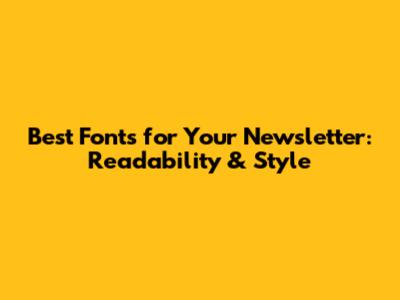
Hey guys! So, you're diving into the awesome world of newsletters, and you've probably hit a bit of a snag: choosing the perfect font. It sounds simple, right? But trust me, picking the right typography can seriously make or break your newsletter. We're talking about readability, brand personality, and whether your subscribers actually stick around to read what you've so carefully crafted. Today, we're going to unpack how to find those amazing fonts that will make your newsletter shine. We'll cover everything from the classics that everyone loves to some cooler, more modern options that can give your message that extra pop. It's all about making sure your content is not just seen, but truly enjoyed by everyone who opens it. Get ready to level up your newsletter game, because the right font is your secret weapon!
Why Font Choice Matters for Your Newsletter Crew
Alright, let's get real for a sec. Why should you even care about fonts for your newsletter? It's more than just pretty letters, guys. Think about it: your font is the first visual impression your words make. It sets the tone before anyone even reads a single word. A cluttered, hard-to-read font? That's like trying to have a serious conversation in a noisy bar – frustrating and likely to end with people tuning out. On the flip side, a clean, well-chosen font can make your message feel professional, trustworthy, and super easy to digest. For newsletters specifically, we're often dealing with longer chunks of text, which means readability is king. You want your subscribers to glide through your content, not stumble over every other letter. This is especially true for email newsletters, where different email clients and devices can render fonts in slightly different ways. So, choosing web-safe fonts or those with robust fallbacks is crucial. Beyond just being able to read it, the font also screams your brand's personality. Are you a playful, quirky brand? Maybe a more humanist sans-serif or even a carefully selected script font (used sparingly!) could work. Are you a sophisticated, corporate entity? A classic serif or a sleek, modern sans-serif might be your jam. The goal is to have your font choices align perfectly with your brand's voice and values, creating a cohesive and memorable experience for your audience. It's about building trust and ensuring that every time someone sees your newsletter, they instantly recognize you and feel good about engaging with your content. Plus, let's be honest, a visually appealing newsletter is just more fun to read, leading to higher engagement rates, more clicks, and ultimately, a stronger connection with your community. So yeah, font choice? It's a big deal.
Serif vs. Sans-Serif: The Classic Debate for Your Newsletter
Okay, let's break down the two main camps of fonts: Serifs and Sans-Serifs. Understanding the difference is key to making an informed decision for your newsletter. First up, Serif fonts. These are your classic, traditional fonts. You know, the ones with the little decorative 'feet' or 'strokes' at the ends of the letters? Think Times New Roman, Georgia, or Garamond. The theory behind serifs is that those little feet help guide the reader's eye along the line of text, making them particularly great for long blocks of copy, like in books or, you guessed it, newsletters. They often convey a sense of elegance, tradition, and trustworthiness. If your newsletter aims for a more formal, authoritative, or classic feel, a serif font can be a fantastic choice. They can make your content feel established and credible. Now, let's talk about Sans-Serif fonts. 'Sans' literally means 'without', so these are fonts without those little feet. Think Arial, Helvetica, Open Sans, or Lato. Sans-serifs are generally considered more modern, clean, and minimalist. They tend to be super readable on digital screens, especially at smaller sizes, which is a massive plus for email newsletters that need to look good on phones, tablets, and desktops. Many designers prefer sans-serifs for body text in digital formats because of their crispness and clarity. They often evoke feelings of friendliness, approachability, and simplicity. If your brand is more contemporary, tech-focused, or aims for a casual, direct vibe, a sans-serif is likely your best bet. Now, the big question: which one for your newsletter? Honestly, there's no single right answer! Many successful newsletters use a sans-serif for body text because of its superior digital readability. However, you could also use a serif for body text and then a contrasting sans-serif for headings, or vice-versa, to create visual interest. The most important thing is to test how your chosen font looks in an actual email preview across different devices and email clients. Prioritize legibility above all else, but don't forget that your font choice also speaks volumes about your brand's personality. Experiment, see what feels right for your message, and always keep your readers' experience front and center.
Top Font Picks for Maximum Newsletter Readability
Alright, so we've covered the why and the what (serifs vs. sans-serifs). Now, let's get down to the nitty-gritty: which specific fonts are actually good for newsletters? We're talking about fonts that are not only stylish but, more importantly, incredibly easy to read, even in a crowded inbox. When choosing for your newsletter body text, always think web-safe and highly legible. You want fonts that render consistently across all devices and email clients. Sans-serifs are often the go-to for this reason. Let's start with some absolute rockstars. Open Sans is a phenomenal choice – it's friendly, highly readable, and has a huge range of weights. It's a Google Font, so it's free and widely supported. Lato is another fantastic option, similar to Open Sans but with a bit more personality, feeling both warm and stable. Roboto is Google's default Android font, and it's incredibly versatile, designed with readability in mind for screens. Montserrat offers a geometric and modern feel, great for brands wanting a clean, urban vibe. If you're leaning towards serifs for a more classic or sophisticated feel, Merriweather is a superb choice. It's a serif designed specifically for screens, making it much more readable than traditional print serifs. Lora is another beautiful serif option, offering a touch of elegance without sacrificing legibility. Source Serif Pro is also a strong contender, known for its clarity. Now, for headings, you have a bit more freedom to play! You can use a bolder weight of your body font, or you can introduce a contrasting font. A strong, distinctive sans-serif like Oswald or Playfair Display (a dramatic serif) can make headings pop. The key here is contrast and hierarchy. Your headings should stand out from your body text, guiding the reader's eye through the article. Remember, the goal is effortless reading. Avoid novelty fonts, overly decorative scripts (unless it's a very small, specific accent), or anything that looks cramped or cluttered. Test, test, test! Send test emails to yourself and view them on your phone, tablet, and desktop. Ask friends to read a draft. See how the font behaves in different situations. Your readers will thank you for making their experience a pleasure, not a chore.
Pairing Fonts: Creating a Dynamic Newsletter Look
Okay, so you've picked a fantastic font for your body text, but what about headings, subheadings, and maybe even call-to-action buttons? This is where font pairing comes in, and guys, it's where you can really inject some personality and visual interest into your newsletter! The goal of pairing is to create contrast while maintaining harmony. You want your different text elements to be distinct but still feel like they belong to the same family – your brand family, that is. The most common and effective strategy is to pair a serif with a sans-serif. This offers a strong, clear contrast that naturally creates hierarchy. For example, you could use a clean, modern sans-serif like Open Sans or Lato for your body text, and then pair it with a more distinctive serif font like Playfair Display or Merriweather for your main headings (H1s and H2s). The serif headings will stand out boldly against the simpler sans-serif paragraphs, drawing the reader's eye. Conversely, you could go with a classic serif like Georgia for your body copy and use a strong, clean sans-serif like Montserrat or Oswald for your headings. This approach often feels very sophisticated and professional. Another pairing technique is to use different weights or styles of the same font family. For instance, you might use a regular weight of Roboto for your body text and a bold or black weight of Roboto for your headings. This creates a very cohesive and minimalist look. You can also play with italics – perhaps using italics for pull quotes or emphasis within the body text. When choosing pairs, think about the overall mood you want to convey. Do you want something bold and impactful? Go for strong contrast. Do you want something subtle and understated? Stick to variations within a single family or very closely related styles. Crucially, ensure both fonts are highly readable, especially the body text. Never sacrifice legibility for the sake of a trendy pairing. Test your combinations in actual email previews. Do the headings look too large or too small compared to the body text? Is there enough space between lines (leading)? Does the combination feel cluttered or clean? Get it right, and your newsletter will not only be easy to read but also visually engaging and memorable, reinforcing your brand's unique identity with every send. It’s all about that visual storytelling!
Common Newsletter Font Mistakes to Avoid, Guys!
Alright, let's talk about the pitfalls. We all want our newsletters to look amazing, but sometimes, in the quest for uniqueness, we end up making choices that actually hurt our message. So, let's cover some common newsletter font mistakes that you should definitely steer clear of. First and foremost: Don't use novelty or display fonts for body text. Fonts like Comic Sans (please, no!), Papyrus, or overly decorative script fonts might seem fun for a one-off social media graphic, but they are an absolute nightmare for readability in a newsletter. They can look unprofessional, juvenile, and make your carefully crafted content incredibly difficult to get through. Stick to the proven, legible fonts we discussed earlier for your main text. Secondly, avoid using too many different fonts. While font pairing is great, going overboard is a recipe for disaster. A general rule of thumb is to stick to a maximum of two or three fonts: one for headings, one for body text, and maybe one for accents or call-to-action buttons. Too many fonts create visual chaos and make your newsletter look messy and disorganized. It confuses the reader and dilutes your brand's message. Another common mistake is poor font sizing. If your body text is too small (think 10pt or less), it's going to be a struggle for many people to read, especially on mobile devices. Aim for at least 14pt or 16pt for body text in emails for optimal readability. Headings should be proportionally larger to create clear hierarchy. Also, be mindful of line spacing (leading). Text that is too tightly packed together is hard on the eyes. Generally, a line height of about 1.4 to 1.6 times the font size is a good starting point. Finally, don't forget about web-safe fonts or fallbacks. If you use a fancy custom font that isn't supported by all email clients, your newsletter might render with a default, boring font, ruining your design. Always have a reliable fallback font in mind (like Arial, Helvetica, or Times New Roman) to ensure your message still gets across clearly, even if your primary choice doesn't load. By avoiding these common errors, you're setting yourself up for a much more successful and engaging newsletter experience for your subscribers. Keep it clean, keep it clear, and keep it readable!
Testing Your Newsletter Fonts: The Crucial Final Step
We've talked about choosing fonts, pairing them, and avoiding mistakes, but guys, none of that matters if you don't test your newsletter fonts before you hit send. This is arguably the most crucial step in the entire process. Why? Because what looks good on your design software or even in your email composer might look completely different once it lands in your subscriber's inbox. Email clients (like Gmail, Outlook, Apple Mail) and different devices (desktops, laptops, tablets, smartphones) all render fonts in their own unique ways. A font that looks crisp and clean on your high-resolution desktop monitor might appear blurry or oddly spaced on a user's older phone. So, how do you test effectively? Start by sending test emails to yourself and colleagues across various email clients and devices. Check how your chosen fonts – both serif and sans-serif, for body text and headings – appear. Look for legibility: Is the body text easy to read at its current size? Are the headings distinct enough? Is there enough white space? Pay attention to line breaks and paragraph spacing. Does the text feel cramped or overly spread out? Next, consider accessibility. Use tools like the Web Content Accessibility Guidelines (WCAG) contrast checker to ensure there's enough contrast between your text color and background color, especially for users with visual impairments. Check that your font choices aren't too thin or light, making them hard to discern. Also, verify that your chosen fonts are actually rendering correctly. If you used a custom web font, double-check that it's loading properly or that your fallback font is a suitable substitute. Services like Litmus or Email on Acid are invaluable for this, as they provide pre-rendered previews of your email across dozens of different clients and devices. While these services often come with a cost, they offer the most comprehensive view of how your newsletter will actually look. Even if you can't use a dedicated service, relying on a range of personal tests is far better than sending blind. The time you invest in testing your fonts will pay off immensely in terms of subscriber satisfaction, engagement, and the overall professional perception of your brand. Don't skip this vital step – your readers' eyes will thank you!
Wrapping Up: Font Perfection for Your Newsletter
So there you have it, folks! Choosing the right font for your newsletter isn't just about aesthetics; it's a fundamental part of effective communication. We've explored why font choice is so critical, diving into the serif vs. sans-serif debate and highlighting top contenders like Open Sans, Lato, Merriweather, and Lora for their readability. We’ve also touched on the art of font pairing to create visual harmony and hierarchy, and, just as importantly, warned against common pitfalls like using too many fonts or opting for illegible styles. Remember, the ultimate goal is to create a readable, engaging, and brand-aligned experience for your subscribers. It's about making it as easy and enjoyable as possible for them to consume your content. Don't underestimate the power of a well-chosen typeface to convey professionalism, personality, and trustworthiness. And please, please don't forget the crucial step of testing your fonts across different email clients and devices. What looks good in theory needs to hold up in practice. By paying attention to these details, you’ll craft newsletters that not only look great but also achieve your communication goals. So go forth, experiment with these tips, and make your next newsletter the most readable and engaging one yet! Happy sending!